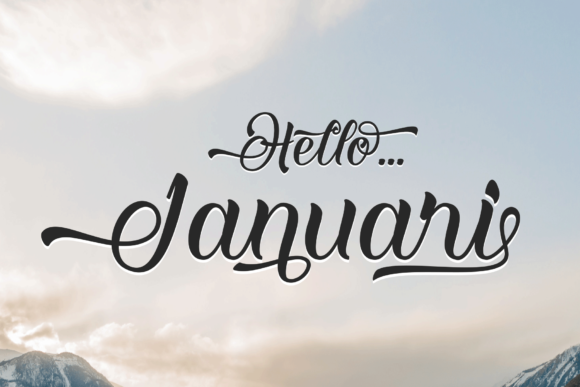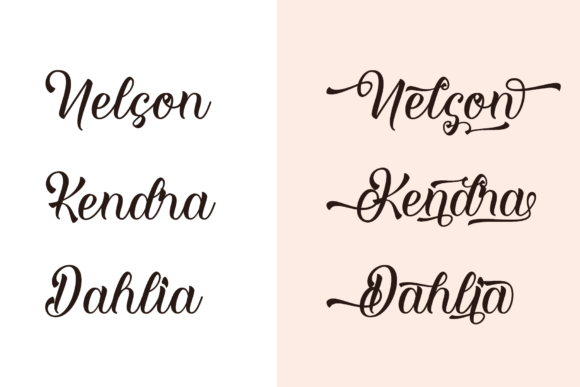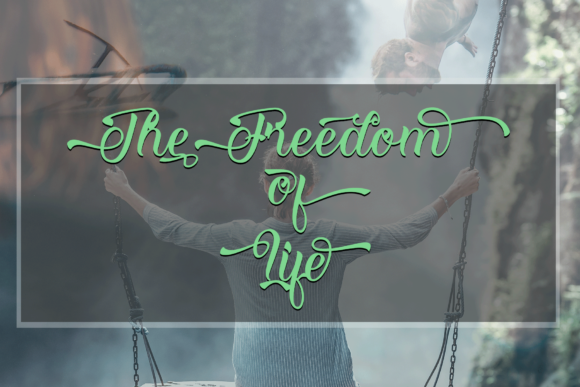
About Hello Januari Font
Hello Januari is a cute, round lettered and well-balanced script font. Trendy and stylish, this font will elevate each of your creations. Hello Januari is PUA encoded which means you can access all of the glyphs and swashes with ease!